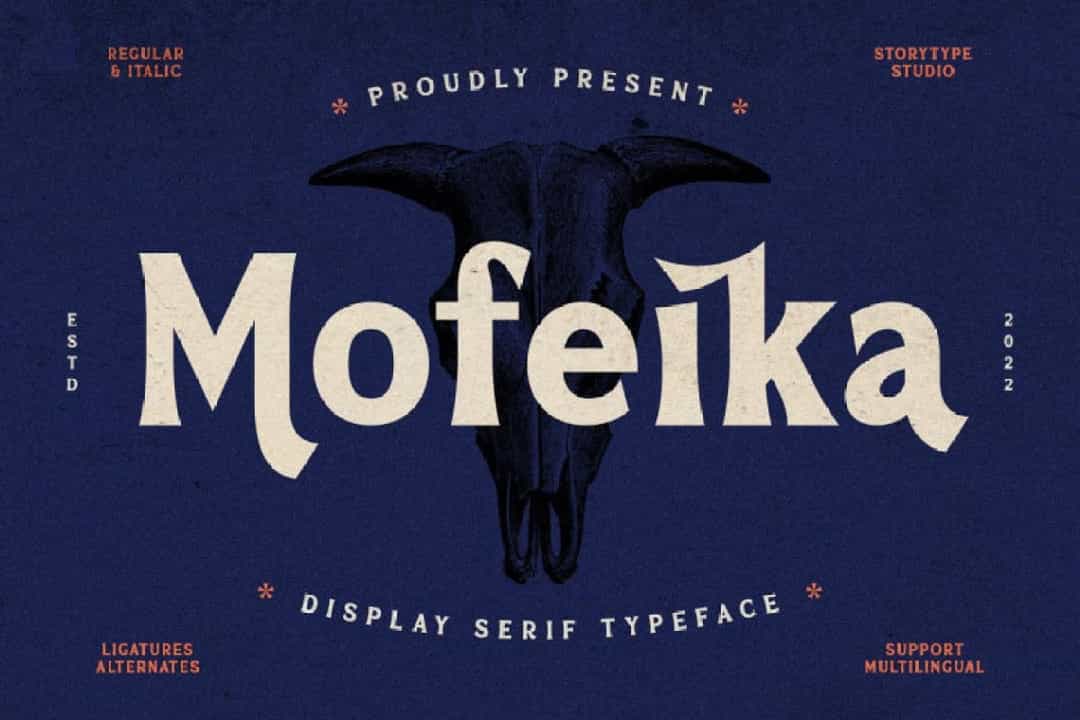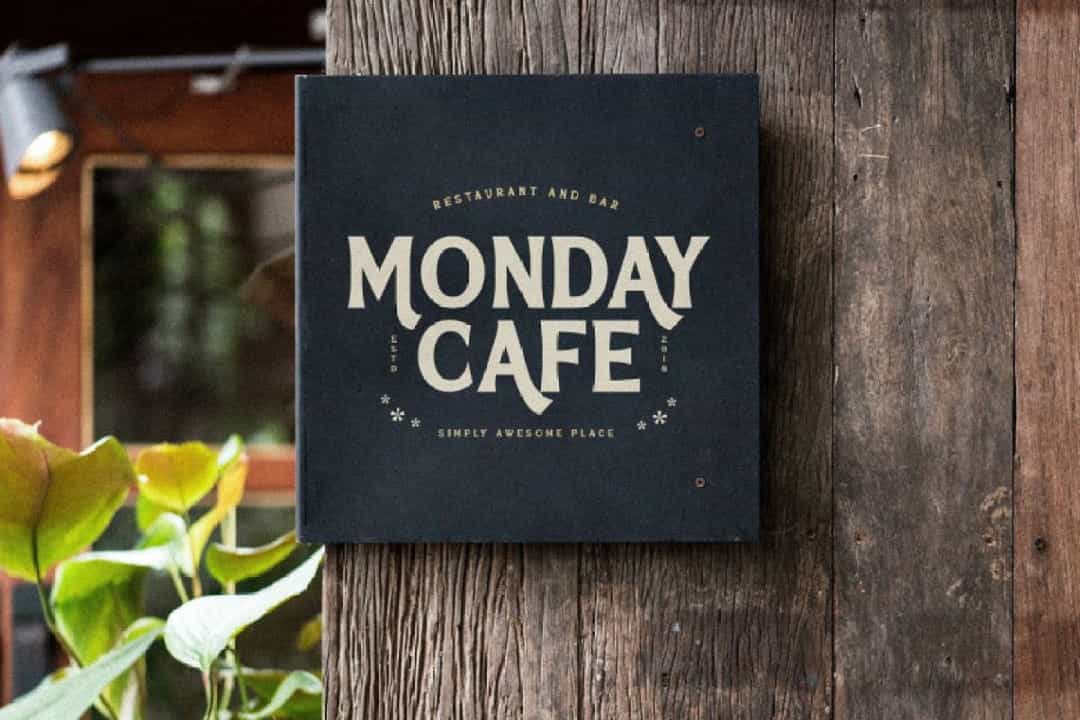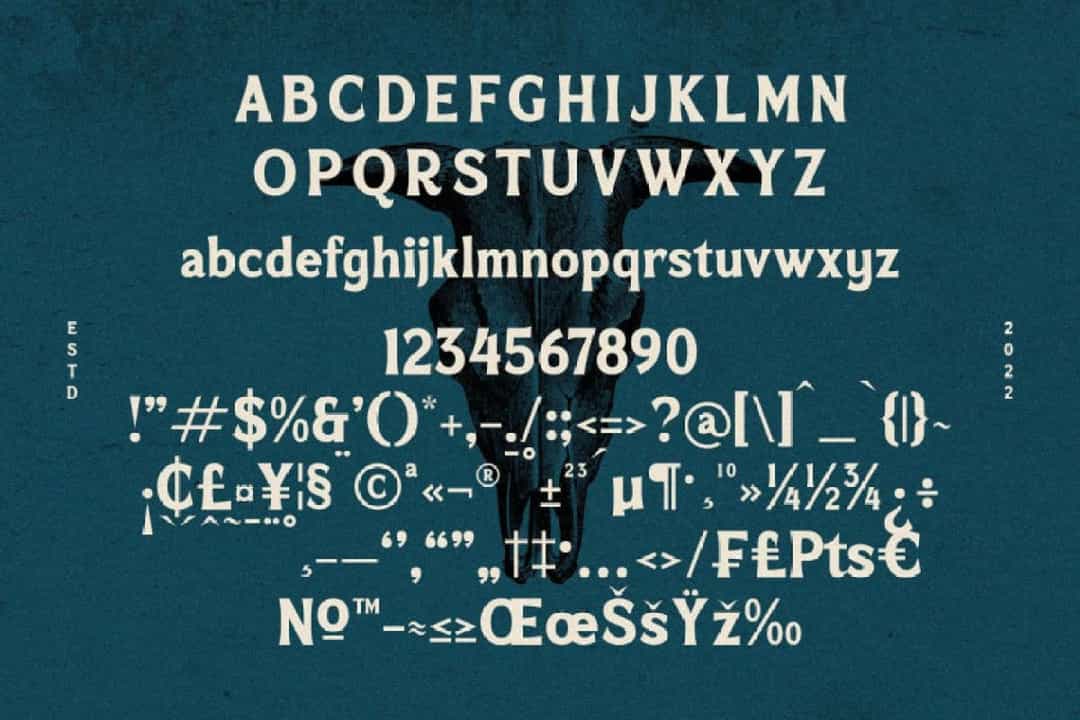
Mofeika can be described as an elegant and timeless display serif font that stands out with its distinct style and contemporary appearance. Perfect for creating classy logos, movie or book styles, fashion label magazines, clothing lettering projects, quotes or anything else you can think of – Mofeika makes any space elegantly designed!